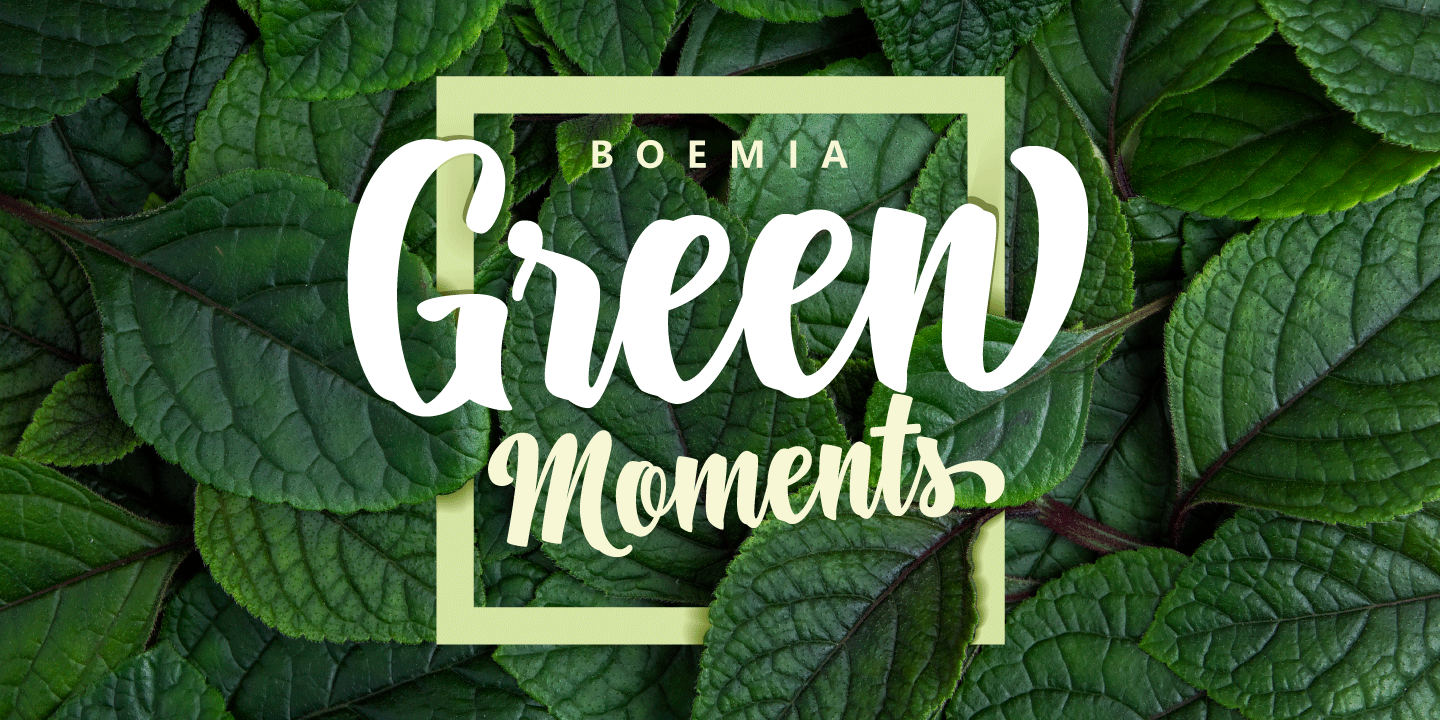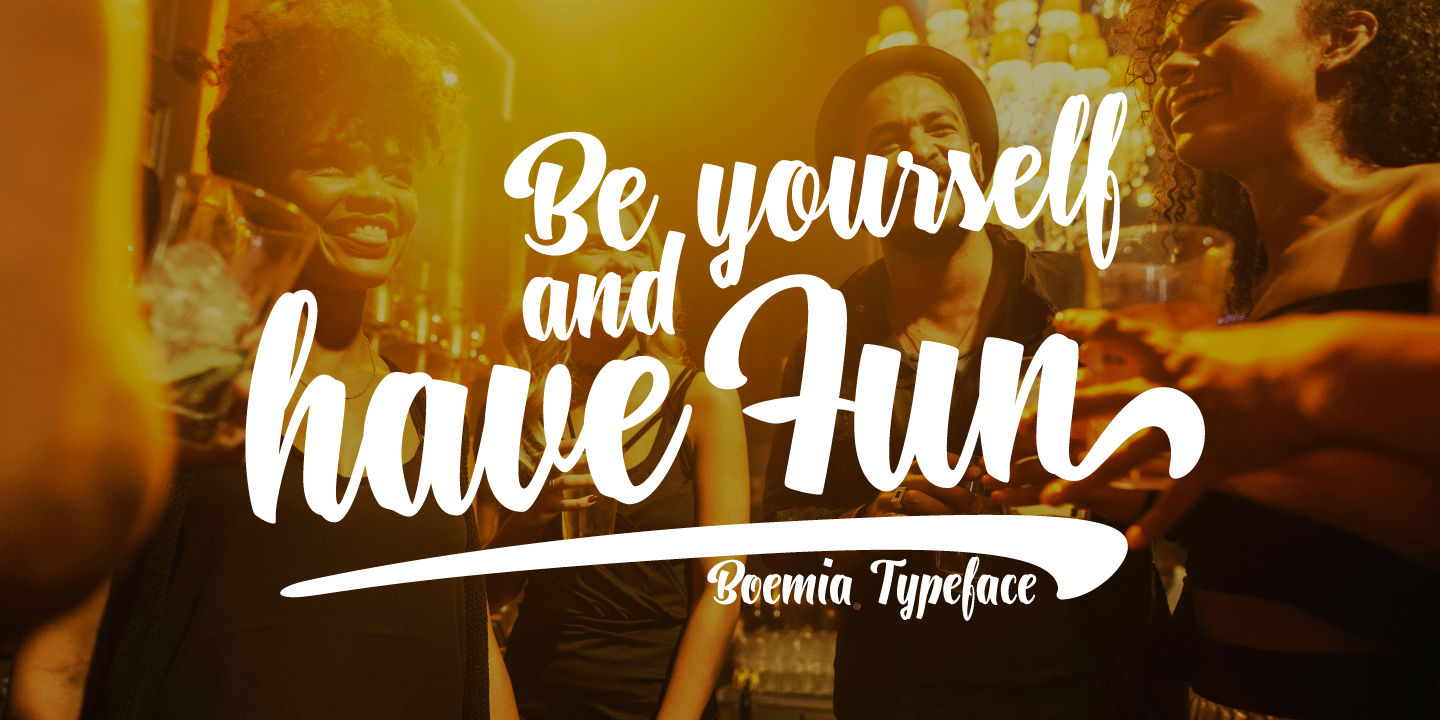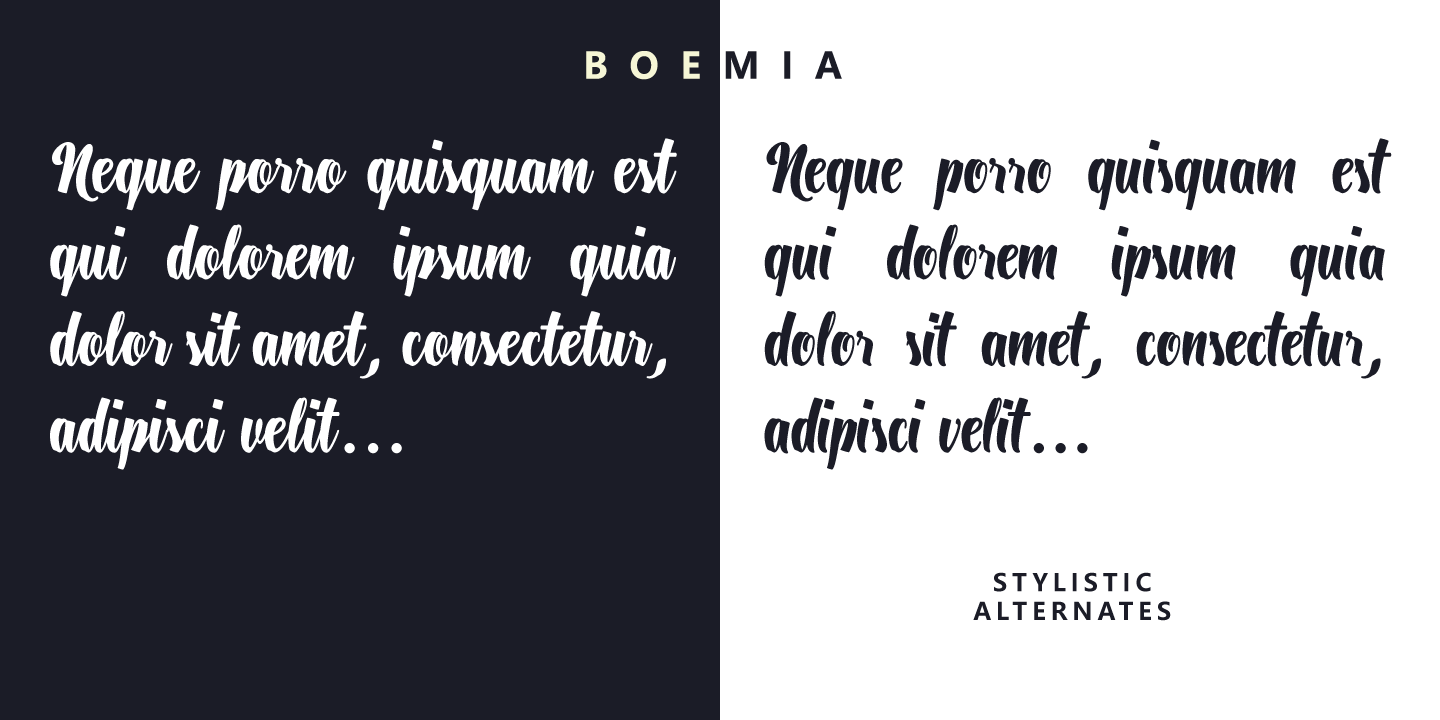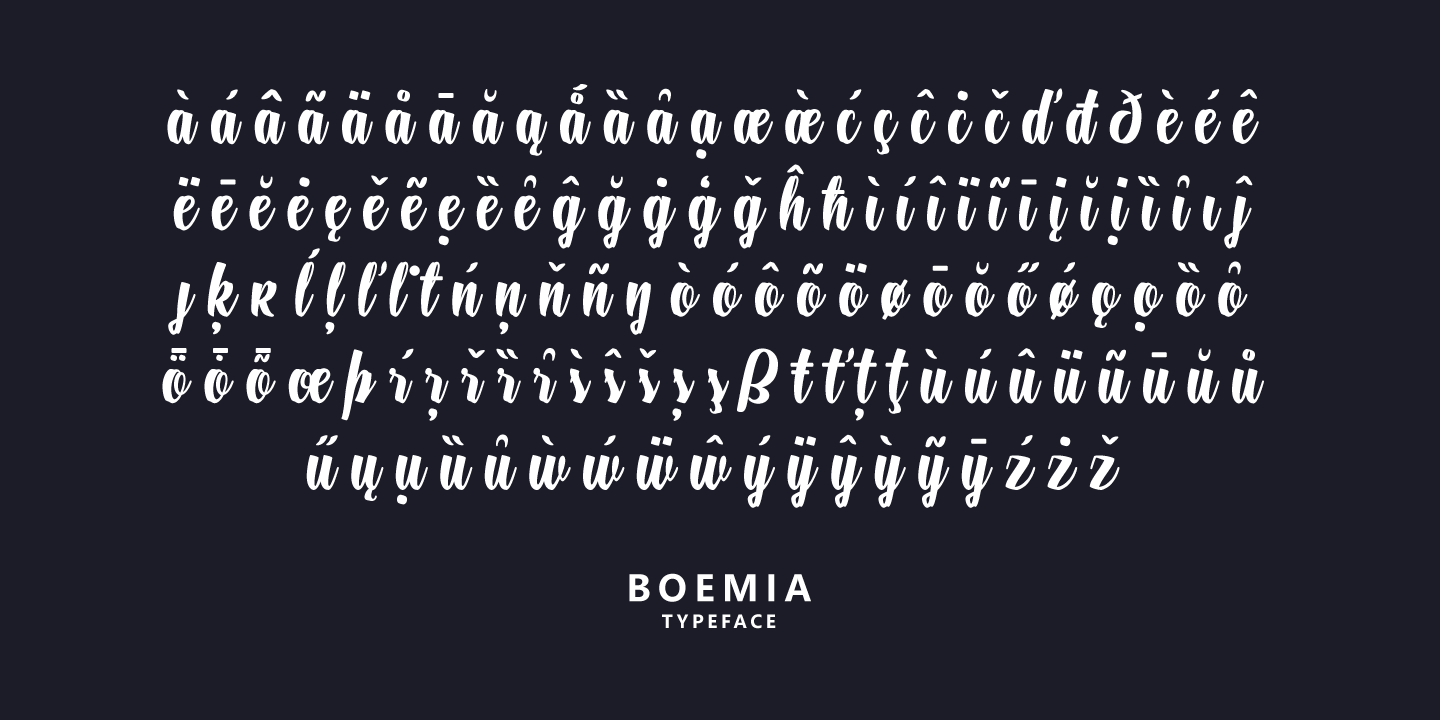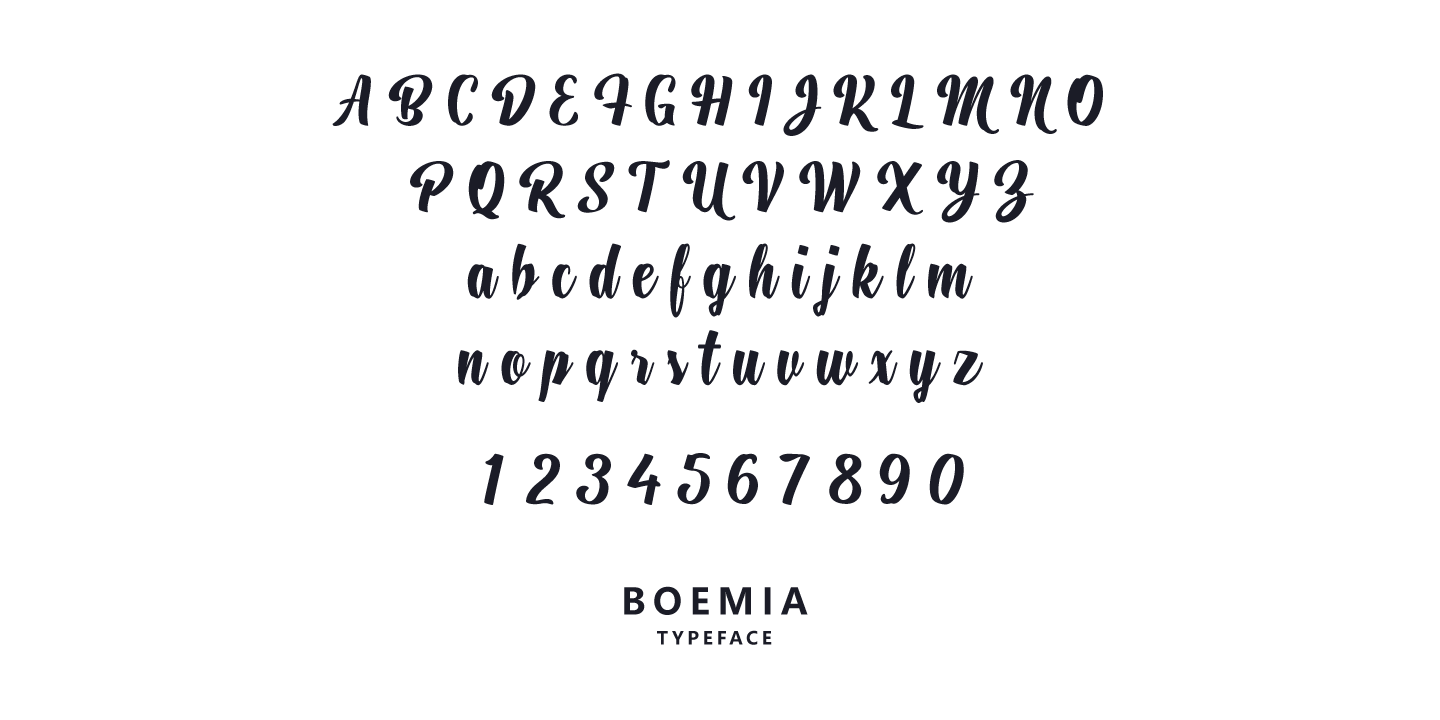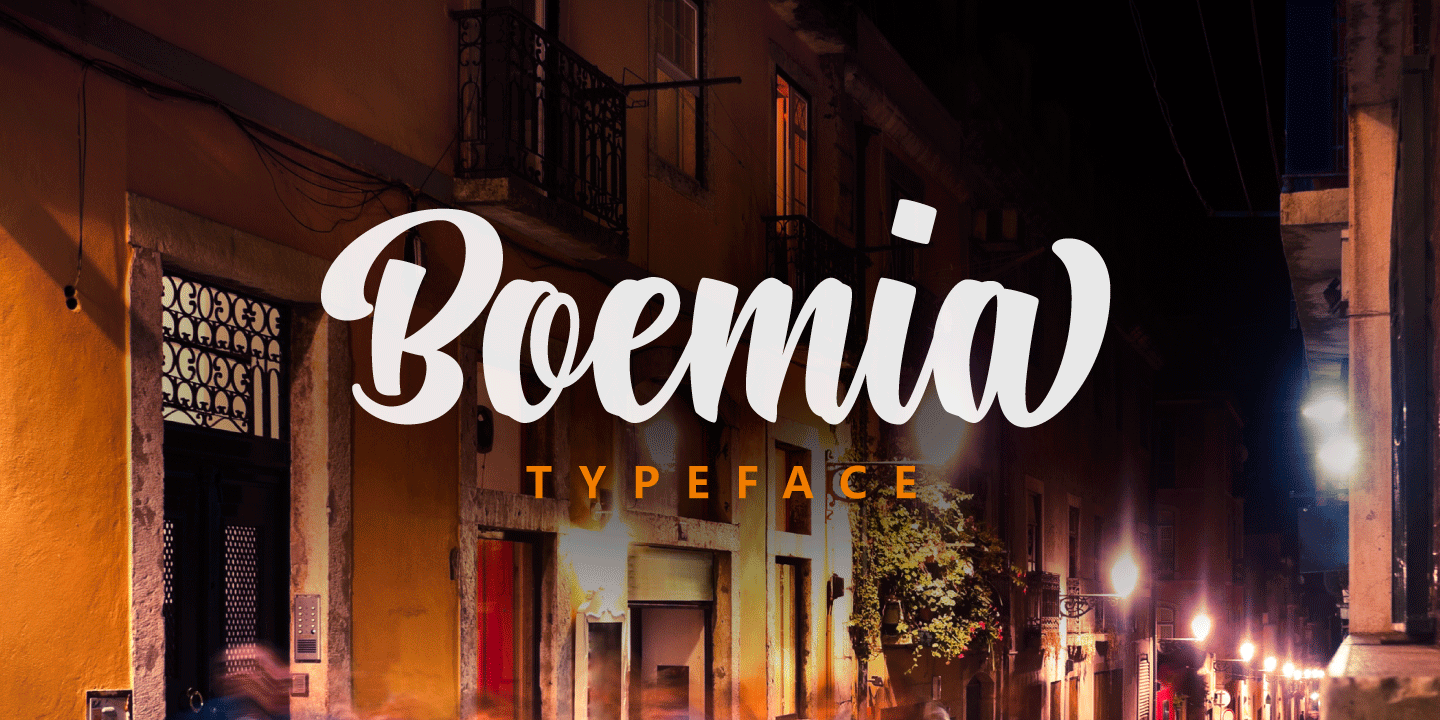
HomeFont BrosScripts: CasualBoemia Scripts: Casual Boemia FacebookXPinterestWhatsApp 1 of 6 About Boemia Boemia, with alternate lowercase and swashes to add value to your projects.  DOWNLOAD NOW People also explored Whisper Secret Font Henju Font Morgan Font Twirrewyn Good Love Font Believe in Unicorn Font Signtype Font Signatured Font The Queenlakes Font 403 0 TagsBoemiaBoemia Font Previous articleMalihini Cuban BTNNext articleOscar LEAVE A REPLY Cancel reply Comment: Please enter your comment! Name:* Please enter your name here Email:* You have entered an incorrect email address! Please enter your email address here Website: Save my name, email, and website in this browser for the next time I comment. Personal Use Free Aldenburg Personal Use Free Read more about this font Cline Personal Use Free Read more about this font Vembazax Rm Personal Use Free Read more about this font Fat Max Personal Use Free Read more about this font BLOG Best Fonts for YouTube Videos: Make Your Thumbnails Stand Out Best Fonts for YouTube Videos: Make Your Thumbnails Stand Out Choosing the right font can make a massive difference in how your YouTube videos perform.... How to Install and Use Fonts on Windows, macOS, and Web Projects Free vs Paid Fonts: Why Investing in Premium Fonts Is Worth It Transform Your Website: Elevate Your Typography with 7 Best Web Font Generators